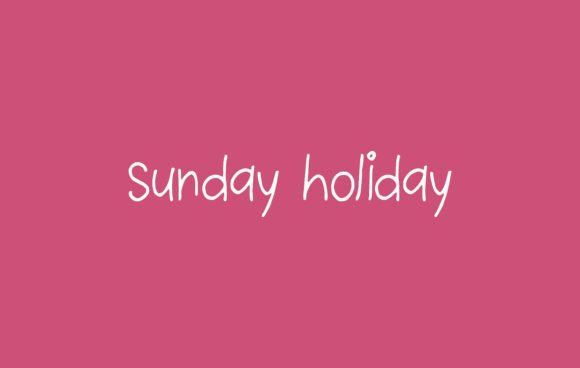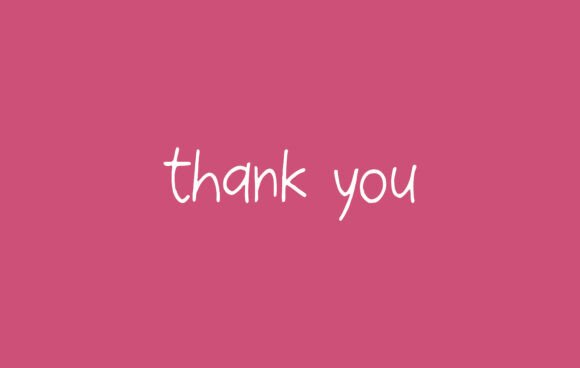
Introduction to Limited Softness Font
Do you remember the moment when you stumbled upon the perfect design element for your creative project? The one that made your heart skip a beat and your ideas come alive? For many designers, finding the right font can be a game-changer. And if you’re looking for a high-quality, authentic handwritten font with a romantic touch, look no further than the Limited Softness Font.
This exquisite design resource is expertly crafted to elevate your creative work to new heights. With its legible and stylish appearance, the Limited Softness Font is perfect for magazine headlines, social media, branding, wedding invitations, cards, and more. Whether you’re working on a free download or a paid project, this font is sure to impress with its transparent background and versatile design.
Key Features of Limited Softness Font
- High-quality design resource for creative projects: The Limited Softness Font is a professional-grade font perfect for designers and artists working on high-end projects.
- Unique Limited Softness style: This font boasts a distinctive look with subtle nuances that set it apart from other fonts in its class.
- Perfect for transparent backgrounds: The font’s design allows for seamless use with transparent backgrounds, making it ideal for creative projects that require a touch of elegance.
Honest Review: Limited Softness Font
I recently had the opportunity to work with the Limited Softness Font, and I must say it’s a unique addition to my design resources. The free download was easy to access, and the high-quality design was immediately noticeable.
- ✨ Unique design: The Limited Softness Font has a distinctive style that’s perfect for creative projects where you want to add a touch of whimsy.
- ✨ Transparent background: This font is ideal for designs that require a clean and minimalist look, as the transparent background allows the text to shine.
- ✨ Versatile: The Limited Softness Font can be used for a variety of purposes, from headings to body text, and even as a decorative element.
However, there are some limitations to consider. ⚠️ The font may not be suitable for all types of designs, particularly those that require a more formal or traditional look.
Overall, I’m impressed with the Limited Softness Font, and I would recommend it to designers who are looking for a unique and creative solution for their projects. With its high-quality design and versatile applications, it’s definitely worth considering as a design resource.
Use the Limited Softness Font in conjunction with a transparent background to create a clean and modern design. Experiment with different font sizes and styles to achieve the desired effect.
The Limited Softness Font is commonly used in logos, branding materials, and social media graphics. Its high-quality design and transparent background make it an ideal choice for creative projects.